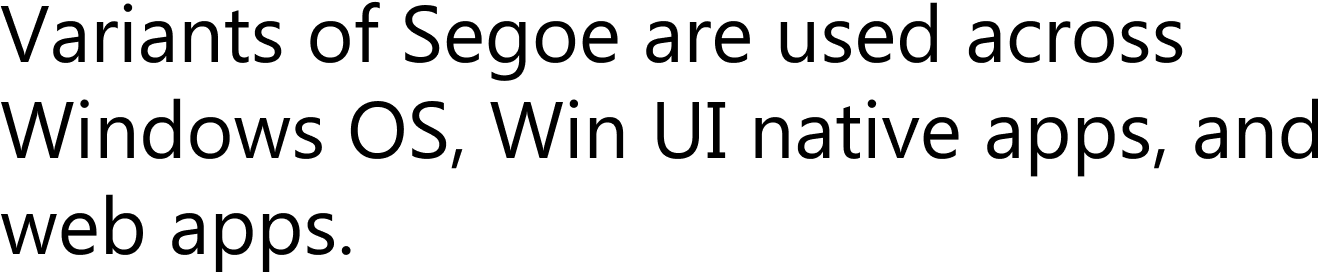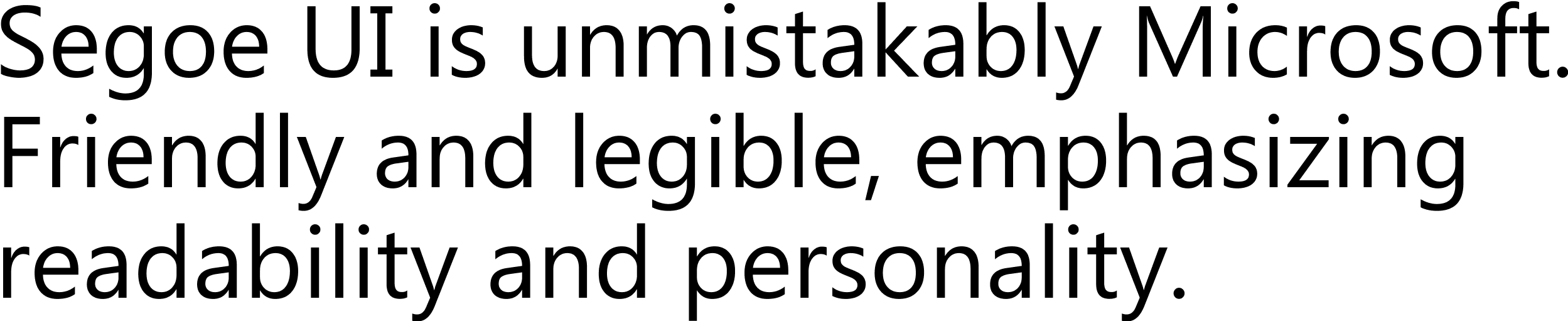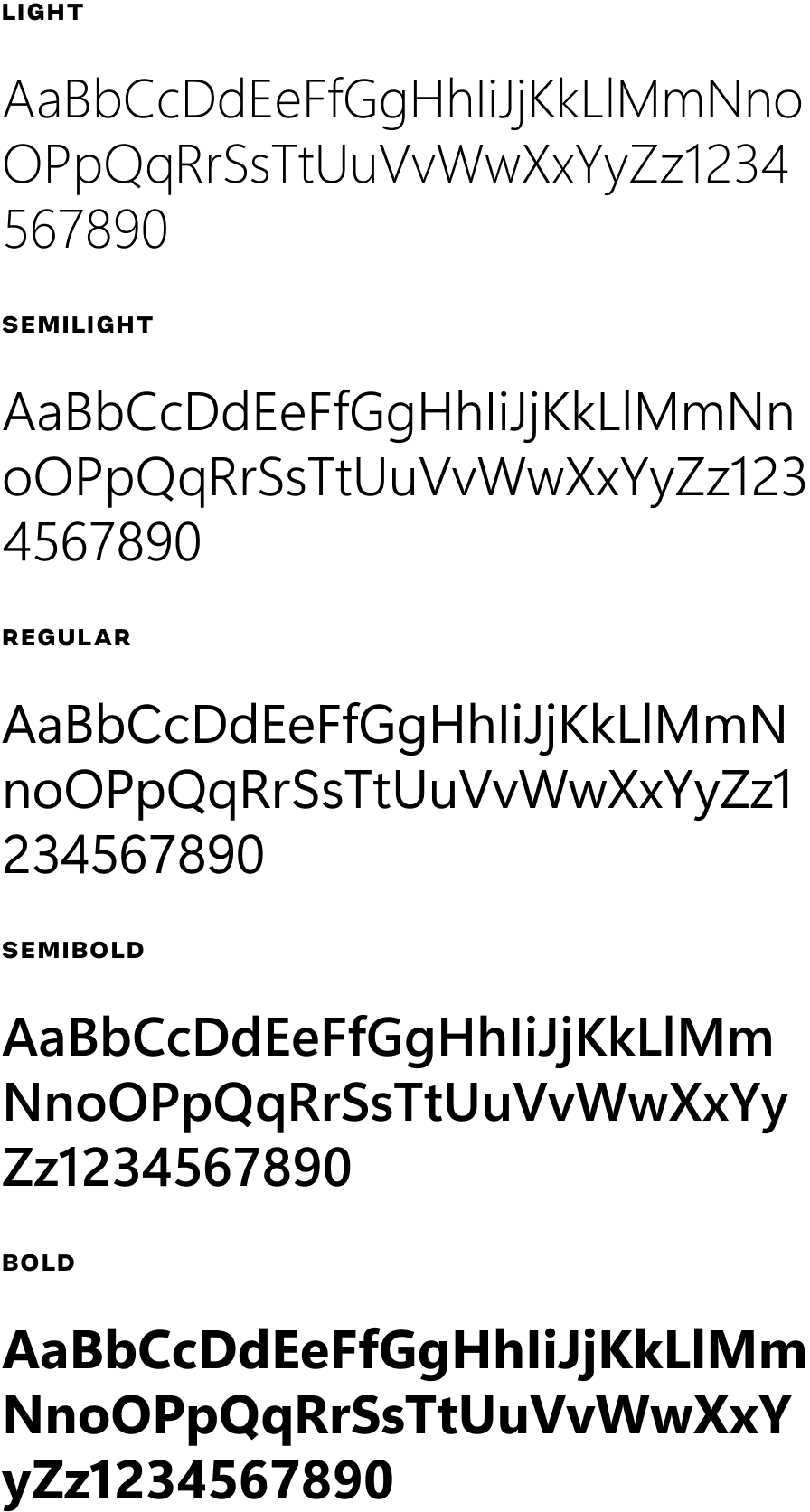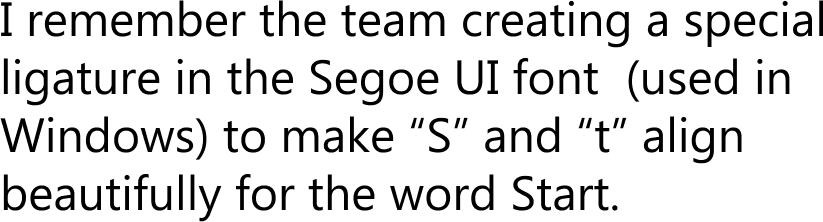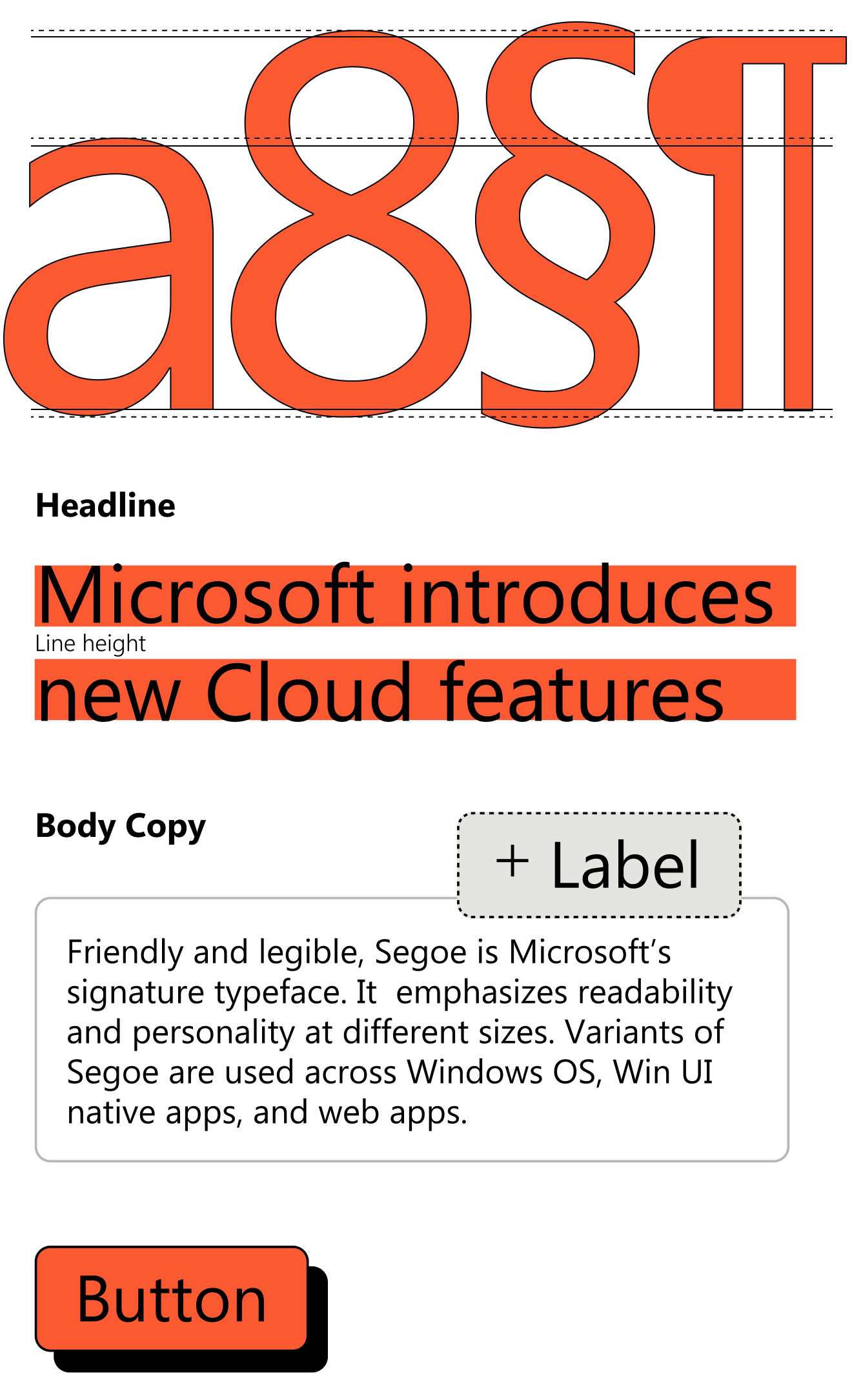
Microsoft Segoe UI
Segoe UI is a member of the Segoe family used in Microsoft products for user interface text, as well as for some online user assistance material, intended to improve the consistency in how users see all text across all languages. , was contractedto expand this preexisting font of 2,530 glyphs, adding two additional weights, as well as making the entire font variable. There were 15 total masters, 37,950 total glyphs, 6 designers, and the initial delivery of the project was completed within 7 weeks.
Microsoft Segoe UI
Font Production
The Family
Identifiers
Highly legible
Emphasizing readability